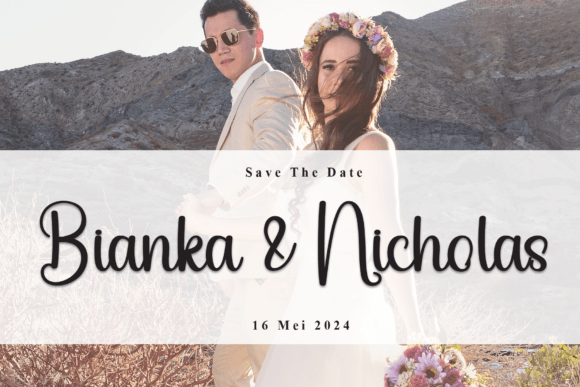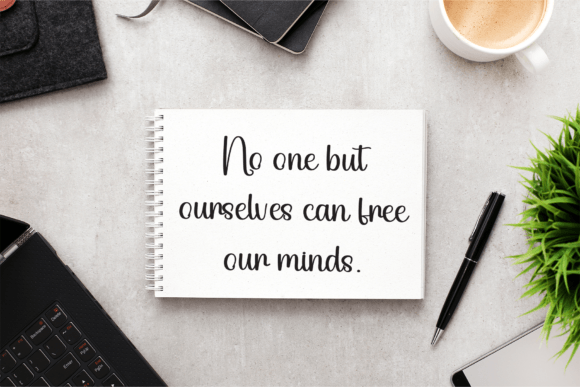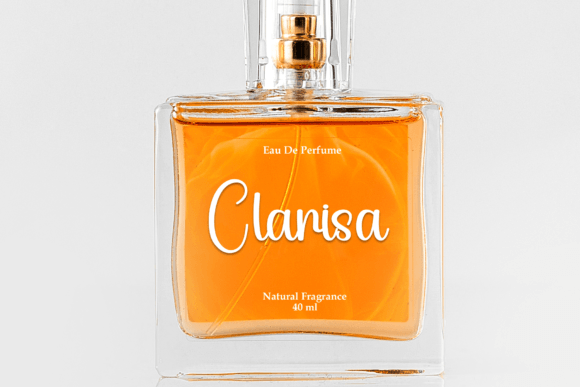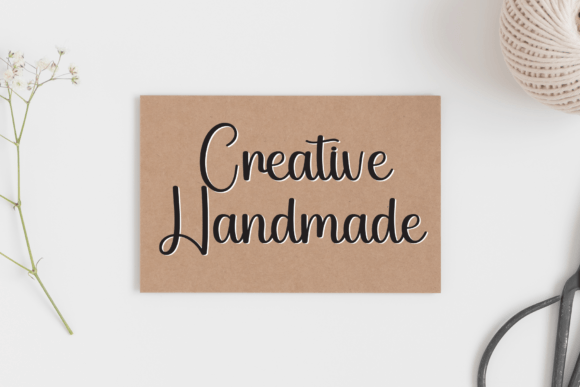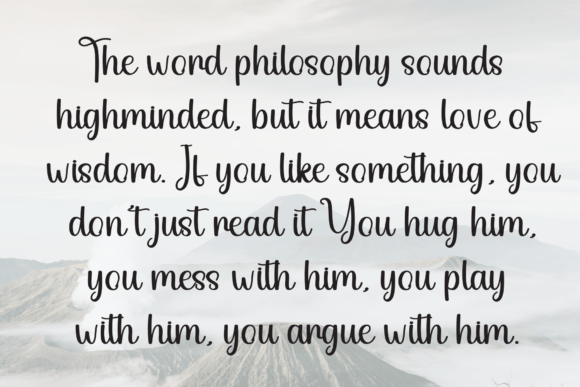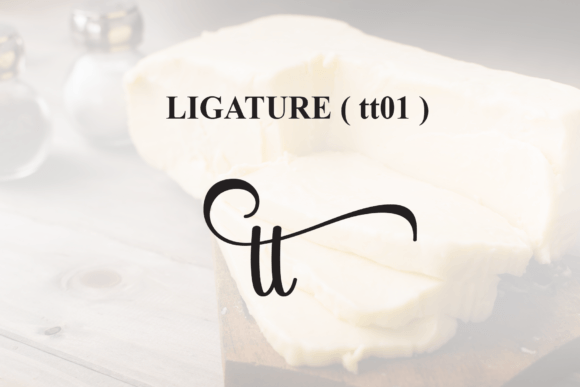
Introducing Butterly Font: The Ultimate Elegance for Your Designs
Are you a designer or crafter looking for a font that exudes elegance and sophistication? Look no further than Butterly Font, a stylish and incredibly elegant script font that is perfect for adding a handwritten touch to your designs. In this article, we’ll dive into the world of Butterly Font and explore its features, uses, and benefits.
What is Butterly Font?
Butterly Font is a beautiful script font that is designed to add a touch of elegance and sophistication to your designs. Its flowing lines and delicate curves make it perfect for creating stunning wedding invitations, thank you cards, quotes, greeting cards, logos, business cards, and more.
Features of Butterly Font
- Elegant and Sophisticated: Butterly Font is designed to add a touch of elegance and sophistication to your designs. Its flowing lines and delicate curves make it perfect for creating stunning designs.
- Handwritten Touch: Butterly Font has a handwritten touch that makes it perfect for designs that require a personal and intimate feel.
- Versatile: Butterly Font is versatile and can be used for a variety of designs, including wedding invitations, thank you cards, quotes, greeting cards, logos, business cards, and more.
- Easy to Read: Despite its elegant and cursive nature, Butterly Font is easy to read and understand, making it perfect for designs that require a clear and concise message.
Uses of Butterly Font
Butterly Font is perfect for a variety of designs, including:
- Wedding Invitations: Add a touch of elegance and sophistication to your wedding invitations with Butterly Font.
- Thank You Cards: Express your gratitude with style and elegance using Butterly Font.
- Quotes: Add a touch of inspiration and motivation to your quotes with Butterly Font.
- Greeting Cards: Create stunning greeting cards for special occasions like birthdays, anniversaries, and holidays.
- Logos: Add a touch of elegance and sophistication to your logos with Butterly Font.
- Business Cards: Create professional and stylish business cards with Butterly Font.
Benefits of Using Butterly Font
Using Butterly Font in your designs comes with a range of benefits, including:
- Unique and Creative: Butterly Font is a unique and creative font that will set your designs apart from the rest.
- Elegant and Sophisticated: Butterly Font adds a touch of elegance and sophistication to your designs, making them perfect for special occasions.
- Time-Saving: Butterly Font is easy to use and saves you time and effort in creating stunning designs.
Tips for Using Butterly Font
Here are some tips for using Butterly Font in your designs:
- Use it Sparingly: Use Butterly Font sparingly to add a touch of elegance and sophistication to your designs.
- Pair it with Other Fonts: Pair Butterly Font with other fonts to create a unique and creative design.
- Experiment with Colors: Experiment with different colors to find the perfect combination that works with Butterly Font.
- Keep it Simple: Keep your design simple and elegant to let Butterly Font shine.
In conclusion, Butterly Font is a stylish and incredibly elegant script font that is perfect for designers and crafters who want to add a handwritten touch to their designs. Its elegant and sophisticated nature makes it perfect for wedding invitations, thank you cards, quotes, greeting cards, logos, business cards, and more. With its versatility, ease of use, and cost-effectiveness, Butterly Font is a must-have for any designer or crafter looking to create stunning designs.